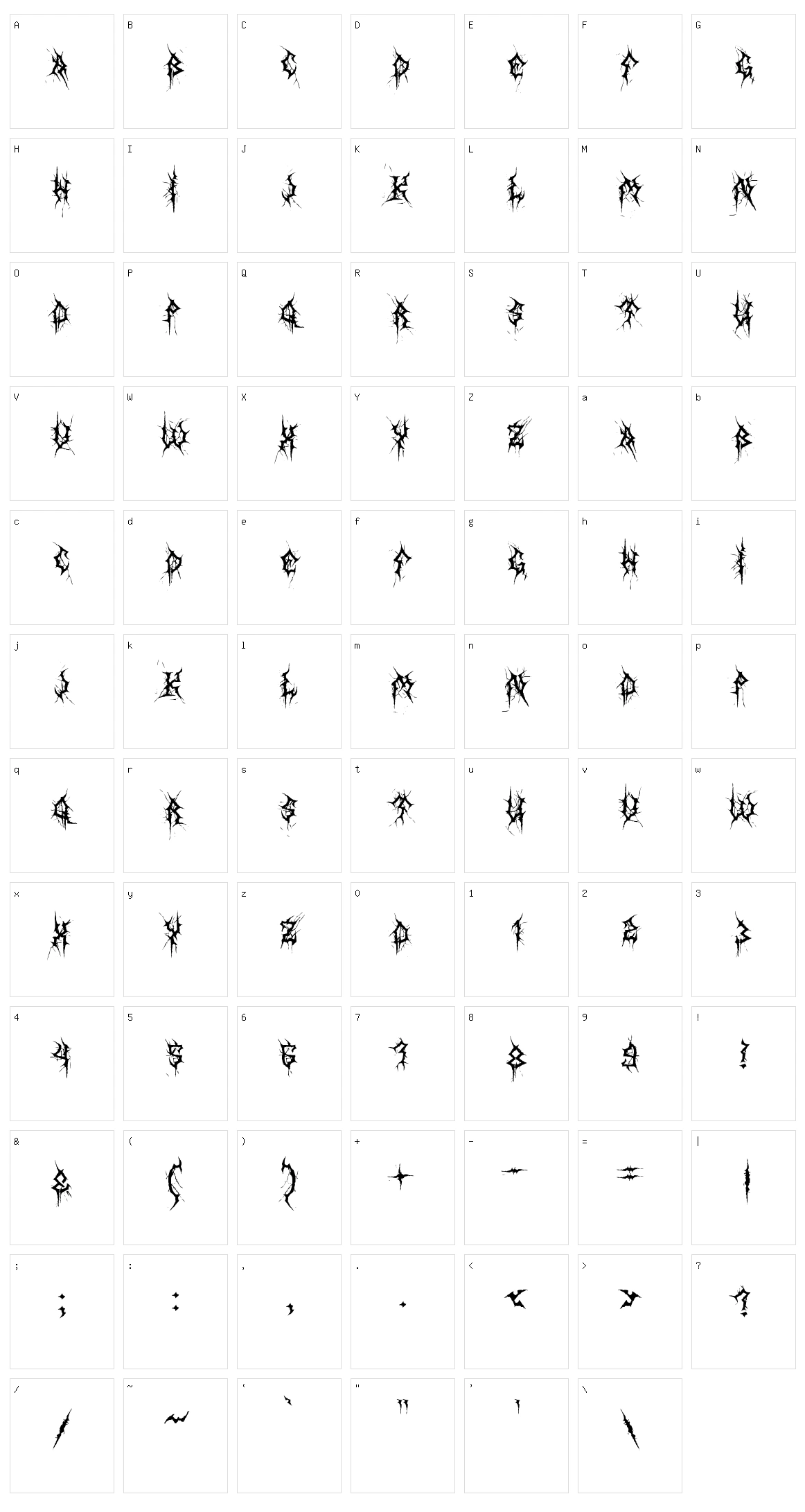
MB Thin Worms - Spiked, Horror Black Metal Font by ModBlackmoon. [Hand-drawing + Photoshop]
Incl. English letters and Numbers, some most common signs, some letters from nordic languages. May be scaled to extra large size without quality loss.
Designed: Summer 2012 (sketched) / May 2013 (released).
Author: ModBlackmoon